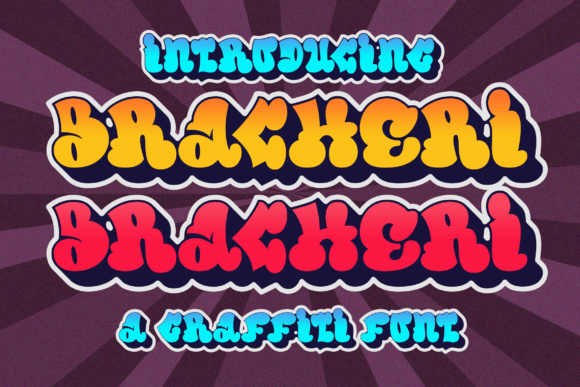
The Urban Edge: Discovering the Bracheri Font
I’ll never forget the time I was working on a project for a streetwear brand, and I just couldn’t find the right font to capture the urban, edgy vibe they were looking for. I scrolled through page after page of font options, but nothing seemed quite right. That was until I stumbled upon the Bracheri font. It was like a breath of fresh air – cool, graffiti-style, and perfect for adding a touch of urban flair to my design. In this article, I’ll share my experience with the Bracheri font, and show you how to make the most of this amazing font in your own designs.
So, what do I love about the Bracheri font? Here are a few things that really stand out:
- ✨ It’s incredibly versatile – use it for t-shirts, sportswear, logos, advertisements, clothing, and more.
- ✅ The graffiti-style aesthetic is unique and eye-catching, making it perfect for designs that need a bit of urban edge.
- 💥 It’s a display font, so it’s designed to make a statement – and it definitely delivers.
- 🤔 Some of the letters may be a bit tricky to read at smaller sizes, so it’s best to use Bracheri for headlines or titles rather than body text.
- ⚠️ As with any display font, it’s not suitable for long blocks of text – but that’s not what it’s designed for.
The Story Behind Bracheri
So, where did the Bracheri font come from? According to the designer, Bracheri was inspired by the vibrant street art of urban cities. The goal was to create a font that captured the energy and creativity of graffiti, while still being legible and easy to use. The result is a font that’s both stylish and versatile – perfect for adding a touch of urban edge to your designs.
| Font Name | Bracheri Font |
| Author | Lettersweet |
| What type of designs is Bracheri best suited for? | Bracheri is perfect for designs that need a bit of urban edge, such as t-shirts, sportswear, logos, advertisements, clothing, and more. |
| Does Bracheri support OpenType features? | Yes, Bracheri supports OpenType features like glyphs and stylistic alternates, which can add extra creativity and flexibility to your designs. |